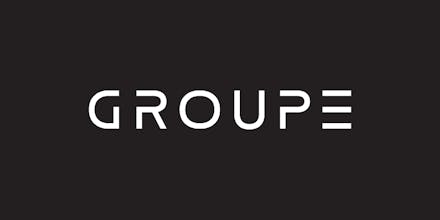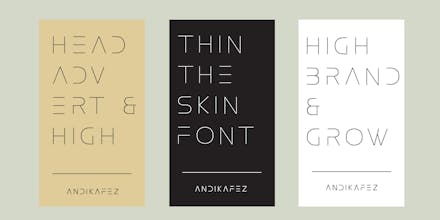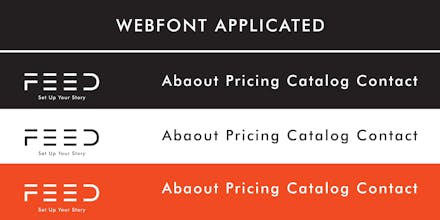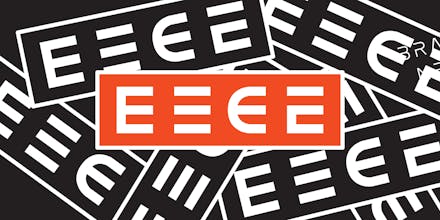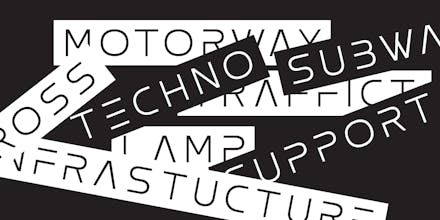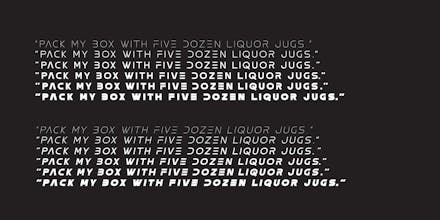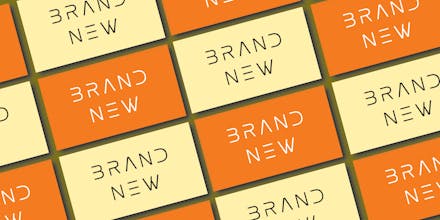
Modern Display Fonts
Fonts enhance the branding campaign
Groupe Family is a modern display font designed for standout branding, bold headlines, and eye-catching visuals. Whether you're designing for startups, fashion brands, digital products, or editorial layouts